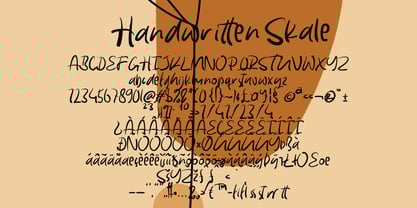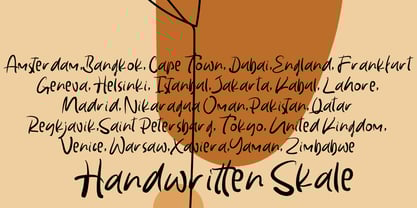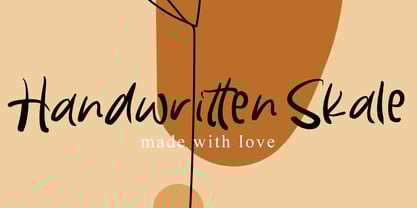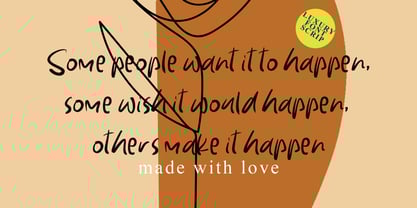
Handwritten Skale
by Ayska
The Handwritten Skale Font Family was designed by Dhoni Trihatmoko and published by Ayska. Handwritten Skale contains 1 styles. More about this family
Experience the captivating elegance of Handwritten Skale, a unique amalgamation of stylish modern aesthetics and artisanal sophistication. With unrivaled allure, Handwritten Skale rises to the occasion as your trusty companion for any digital art adventure.
The font's versatility truly sparkles; engaging blog readers with its rare appeal, adding a layer of novelty to your digital planner design, enriching your invitations with individuality, and personifying your handmade greeting cards with sincere emotions.
Revel in the perennial charm and inventiveness of Handwritten Skale—the perfect selection for adding a touch of nostalgia to your precious photo archives or sprucing up your home décor. Its fascinating allure transforms everyday digital impressions into extraordinary, irresistible works of art.
Let Handwritten Skale navigate your creative voyages, marking the journey with vivid creative signatures. Unearth the artistic glory of Handwritten Skale, and observe as your creative limits transform into unique discoveries.
Designers: Dhoni Trihatmoko
Foundry: Ayska